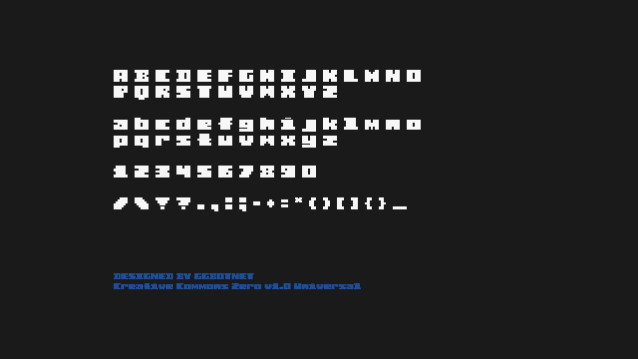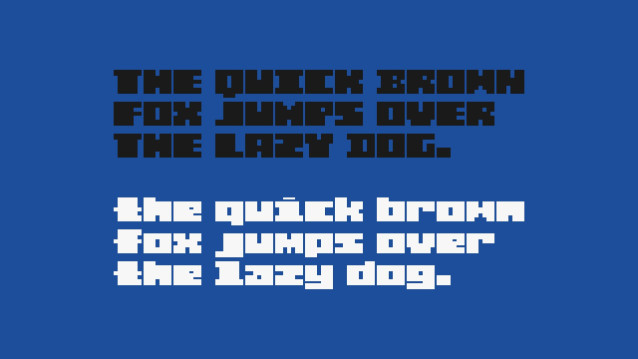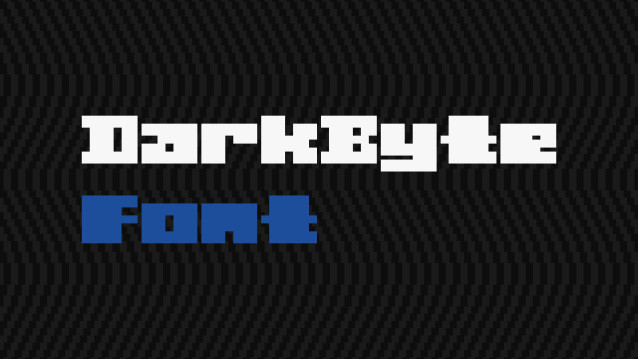
DarkByte Font
DarkByte Font is an extremely impressive and unique display font. It has a modern yet magical style that will definitely take your design into a magical world.